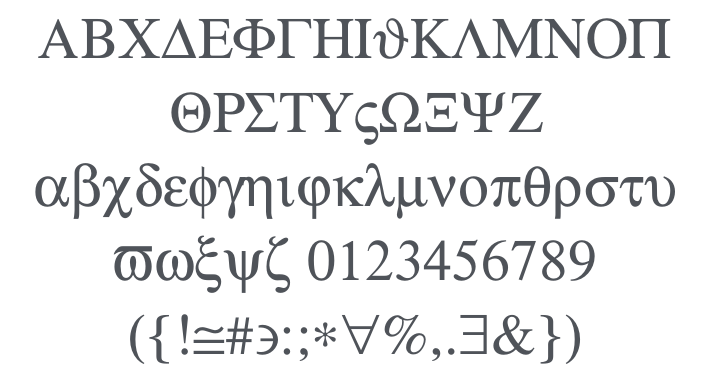
Standard Symbols PS Font
by URW++
About Standard Symbols PS
Standard Symbols PS is a mathematical and scientific symbol typeface from URW++ included in the URW Base35 open-source font package, a set of 35 fonts metrically compatible with the PostScript Level 2 core font set. As a free equivalent of Adobe's Symbol font, it provides Greek letters, mathematical operators, and technical glyphs essential for scientific publishing, equations, and academic typesetting.